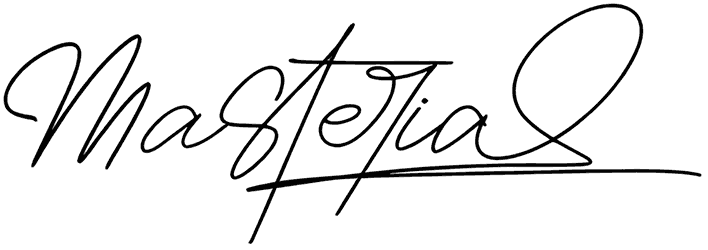
Masteria Font
When you look at the Masteria font, its elegant design makes you stare. This script font has an attractive personality and seems entertaining to the viewers; however, it might be tricky to read.
Moreover, you may use the Masteria font for various cases, such as postcards, business cards, and magazines. This signature font’s letters are constructed of thin lines with extended tails, creating a stylish form. So download it without hesitation to impact your audience.